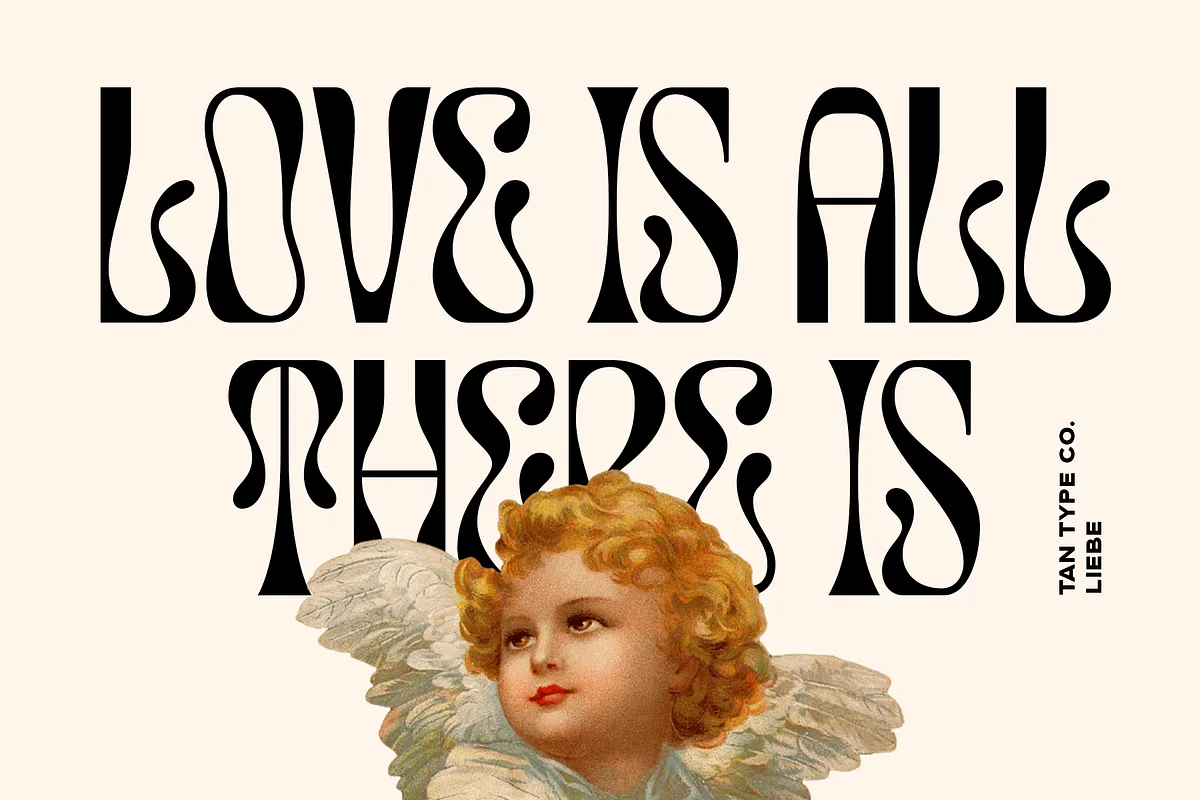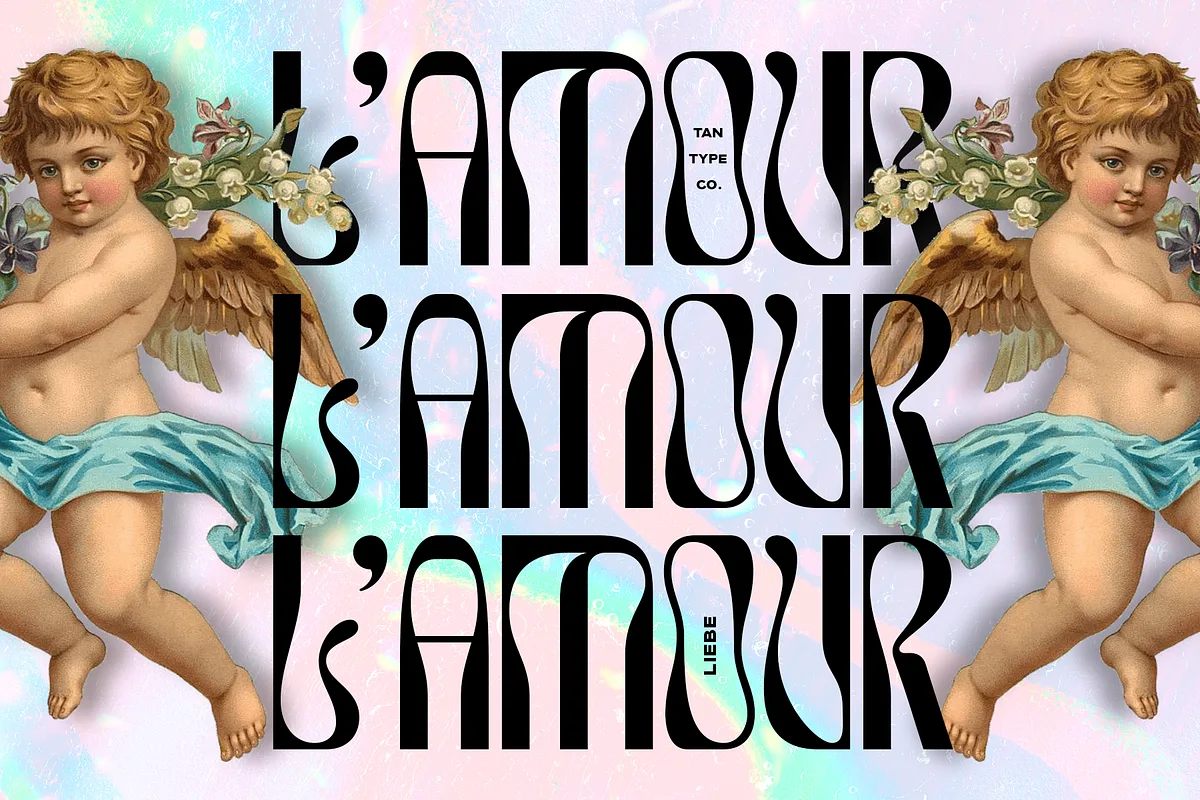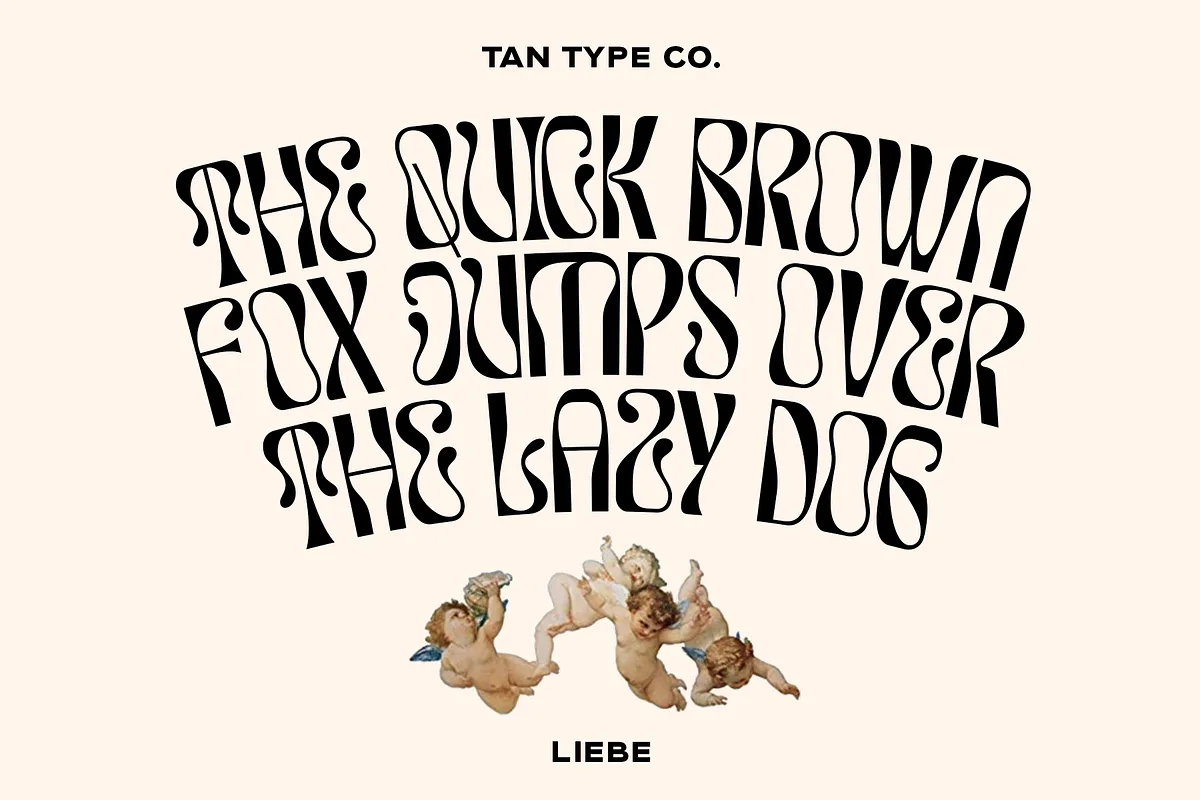
TAN LIEBE is an Art Nouveau-inspired display font with a modern twist. It is designed to be both decorative and readable, making it ideal for a wide range of design projects.